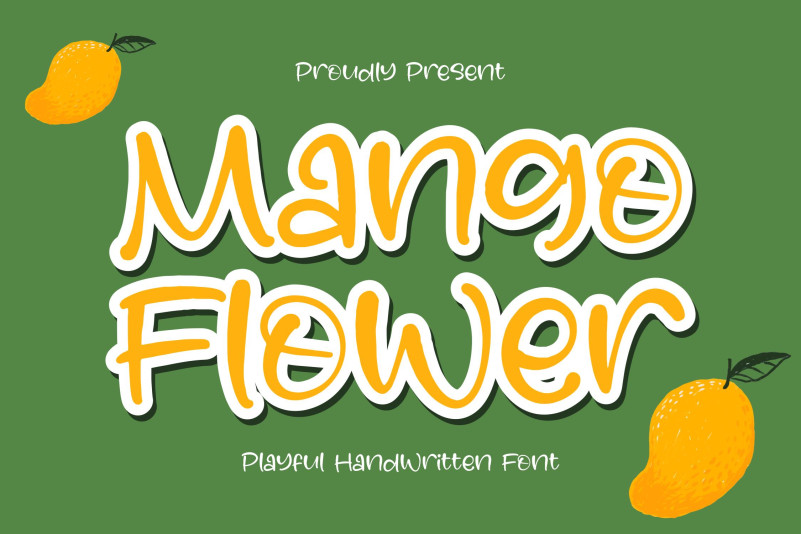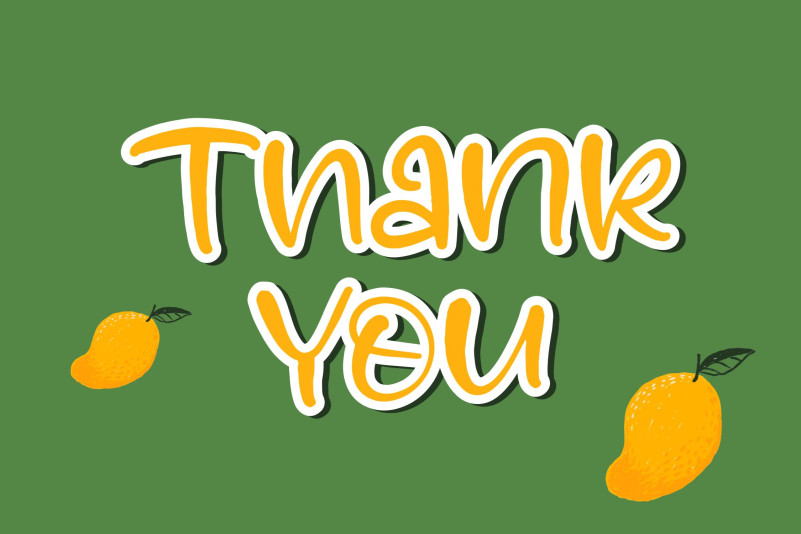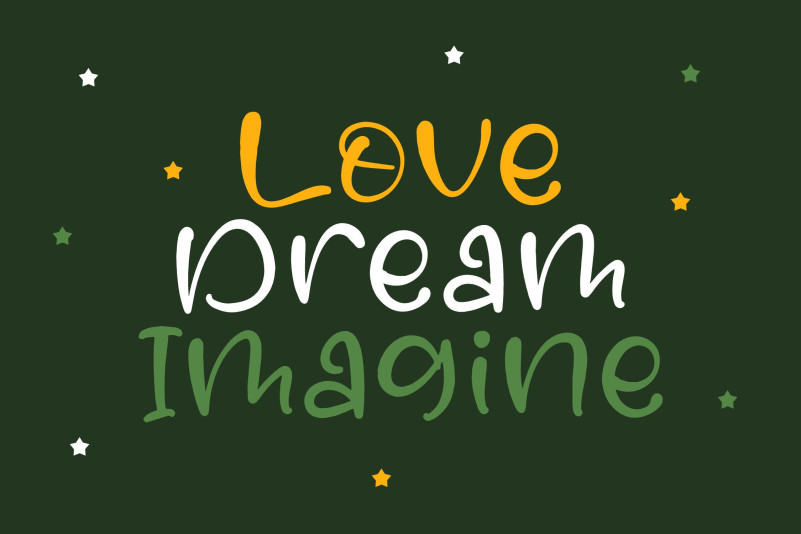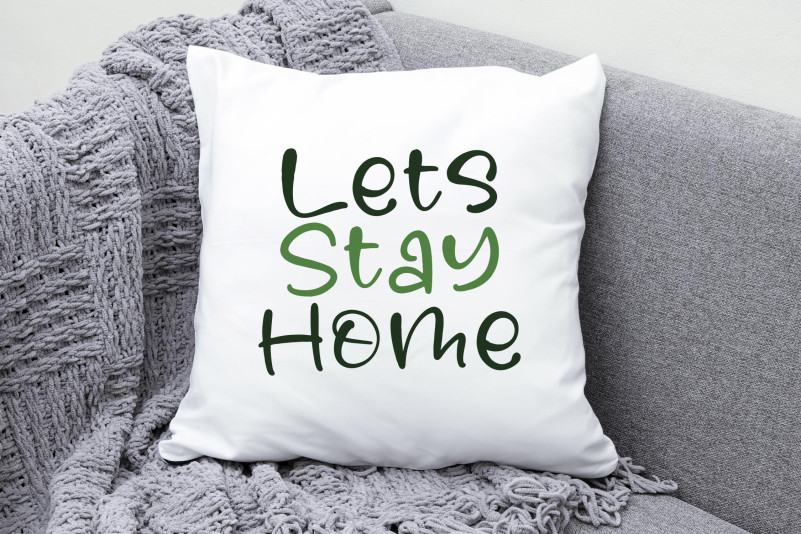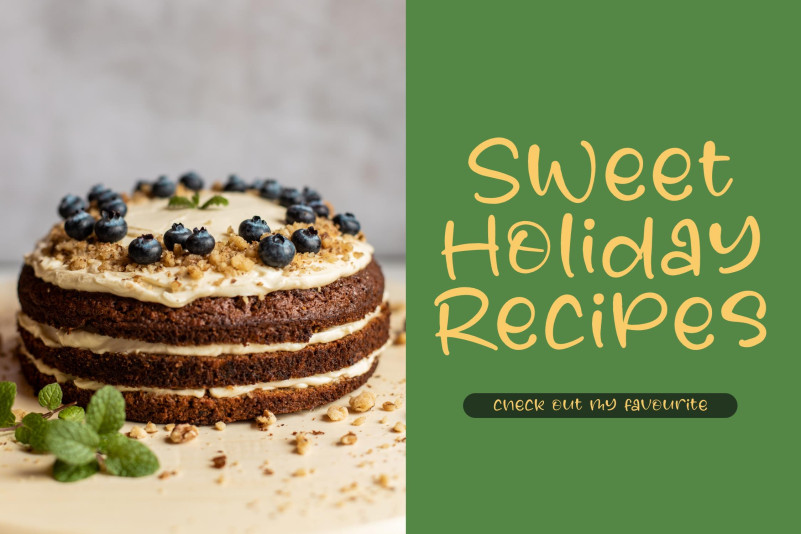
Mango Flower Font – Playful Handwritten Font , from Perspectype Studio, suitable for any projects such as: logos, branding projects, homeware designs, product packaging, mugs, quotes, posters, shopping bags, t-shirts, book covers, name card, invitation cards, greeting cards, label, photography, watermark, special events, and all your other lovely projects that need a beautiful script taste.